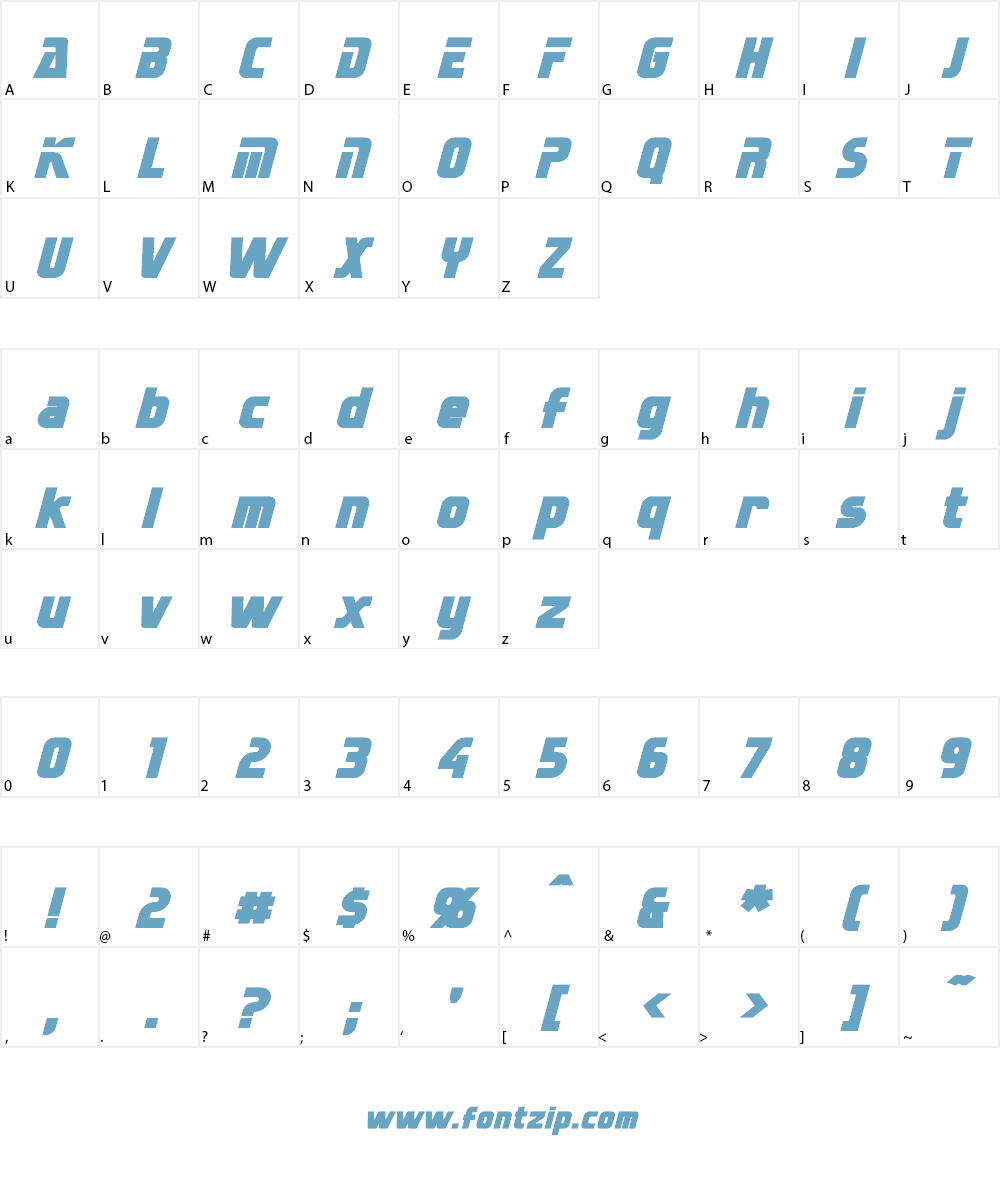
Sternbach is inspired by the title logo of the Star Trek: The Next Generation television series from Paramount Pictures. Includes full alphabet, extended punctuation, and Euro. The type face includes regular, bold, italic, hollow, and hollow italic versions . (Version 1.10)